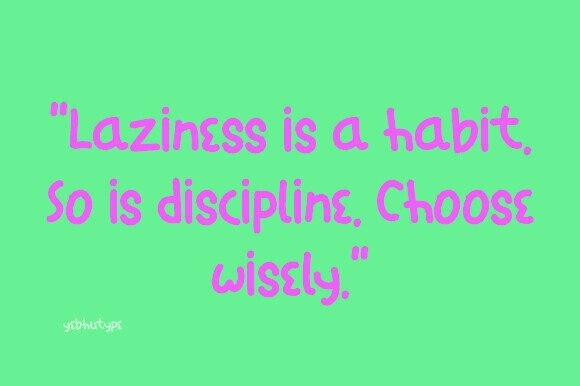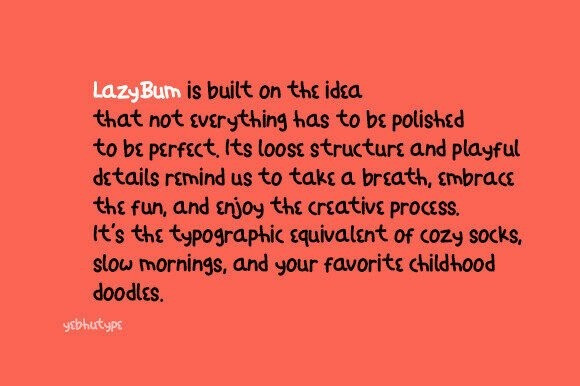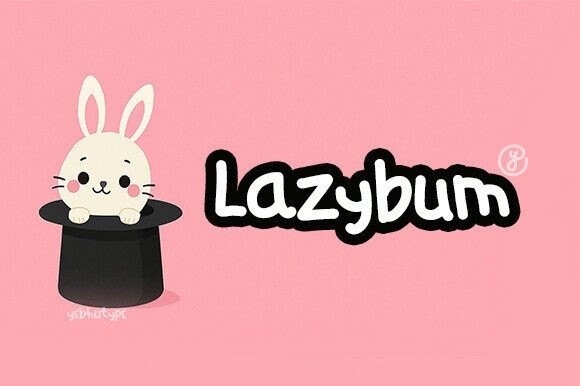
LazyBum Font
LazyBum Font, a delightfully relaxed typeface that captures the charm of handwritten doodles and the ease of lazy afternoons. With its quirky lines and bouncy rhythm, LazyBum brings an effortless cheer to your work—like a friendly scribble in the corner of a notebook or a whimsical thought jotted on a napkin.
This isn’t just a font—it’s a vibe. LazyBum celebrates imperfection, spontaneity, and the joy of creating without pressure. Whether you’re designing for kids, dreamers, creatives, or just looking to add personality to your words, LazyBum wraps your message in warmth, wonder, and just the right amount of mischief.
The Essence of LazyBum Font
LazyBum is built on the idea that not everything has to be polished to be perfect. Its loose structure and playful details remind us to take a breath, embrace the fun, and enjoy the creative process. It’s the typographic equivalent of cozy socks, slow mornings, and your favorite childhood doodles.
Every letter in LazyBum dances with energy, reflecting the spontaneity of handwritten notes and the charm of homemade creations. It’s approachable, imaginative, and full of light-hearted character.